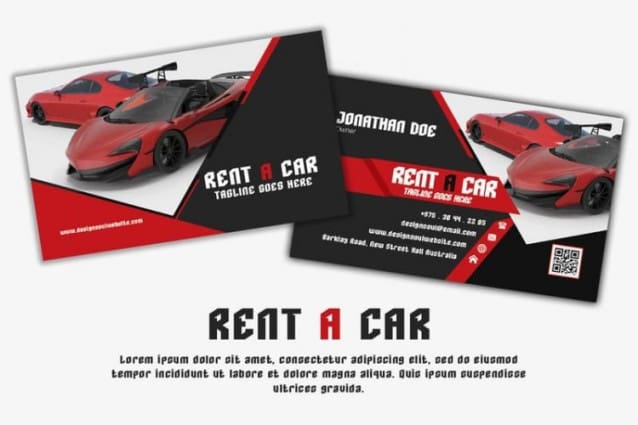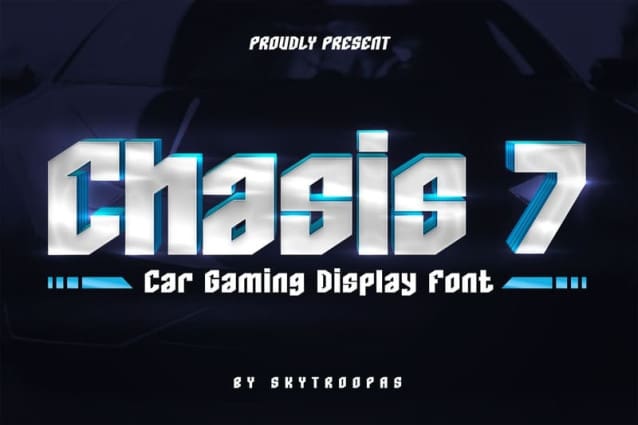
Chasis 7 Font
Chasis 7 Font – the ultimate font for car gaming enthusiasts! With its sleek, modern design and high-energy feel, Chasis 7 is perfect for social media, movies, and Youtube content. And with its bold, sans serif style, it’s sure to make a statement in any design project.
Chasis 7 brings that high octane into the story that you’ll write. Whether you’re creating content for a car racing game or simply want to add a touch of speed and excitement to your design projects, Chasis 7 is the perfect choice. So why wait? Try Chasis 7 today and see how it can take your designs to the next level.